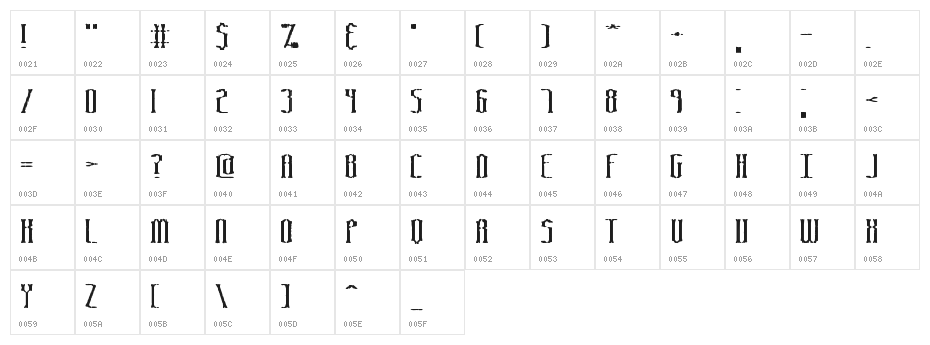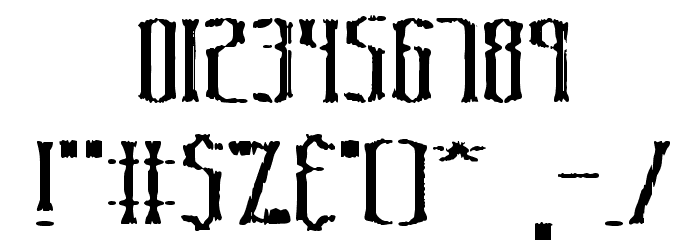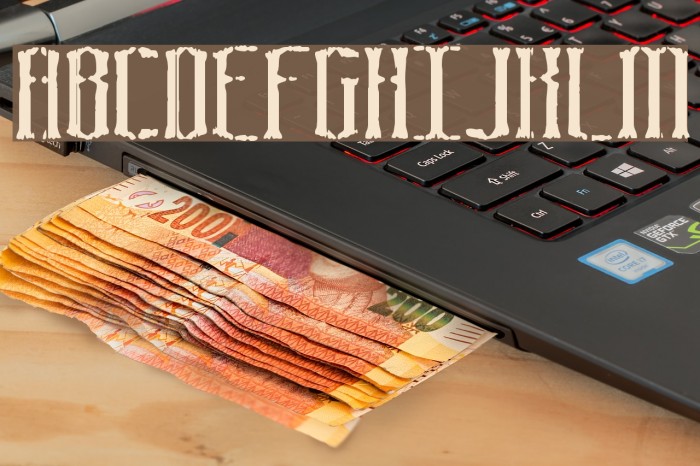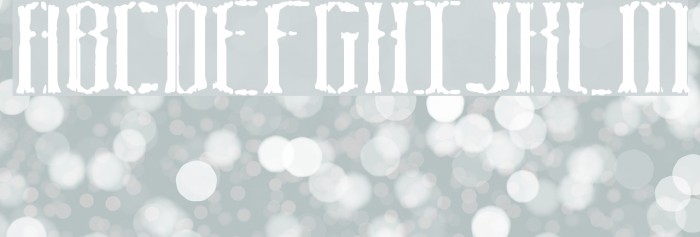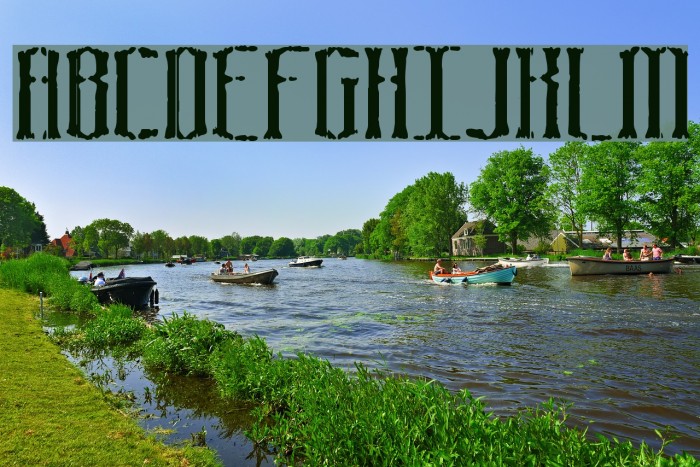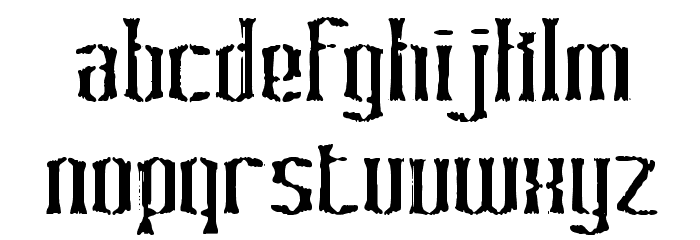
Graveyard BRK Font
Graveyard BRK Description
This font features a distinctive, eerie style reminiscent of gothic or horror themes. The characters are bold and have a rough, jagged appearance, creating a sense of unease and mystery. The uppercase and lowercase letters maintain a consistent height, with sharp edges and uneven strokes that give an impression of being hand-carved or eroded over time. Numbers and special characters follow the same aesthetic, enhancing the overall spooky and dramatic feel. This font is ideal for projects that require a dark, atmospheric touch.
| Overall Style | Gothic, Horror |
| Use Case | Headlines, Posters, Themed Designs |
| Proposed Projects | Halloween invitations, horror movie posters, themed event signage, spooky book covers. |